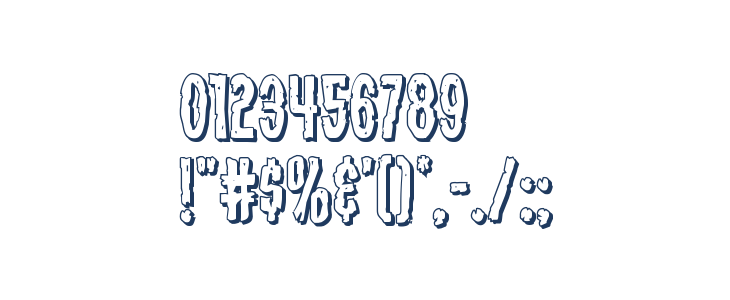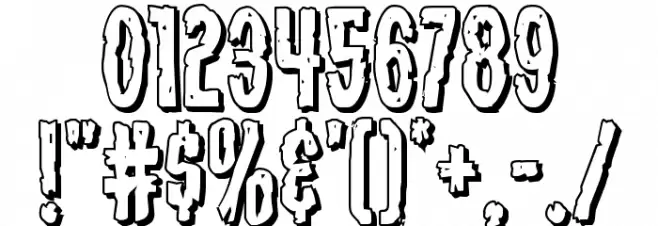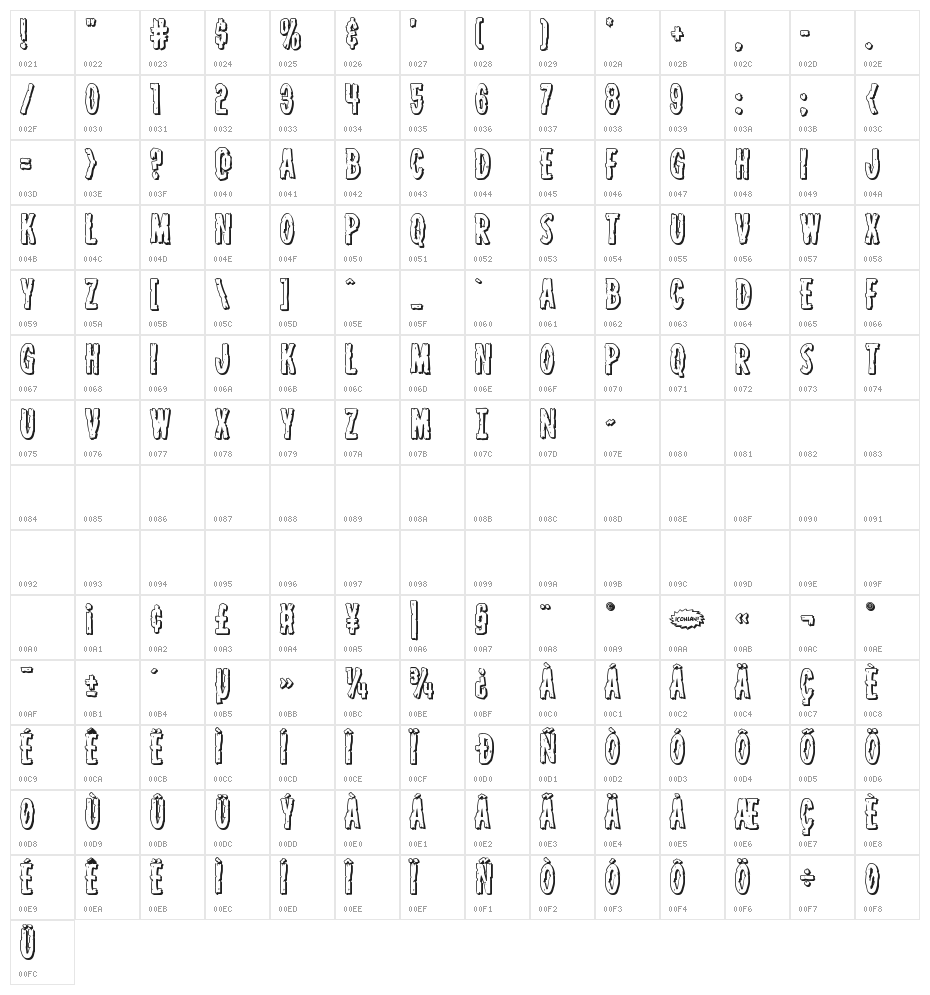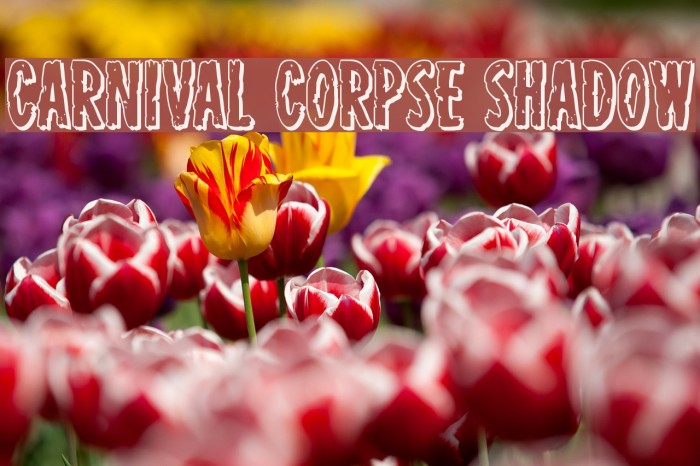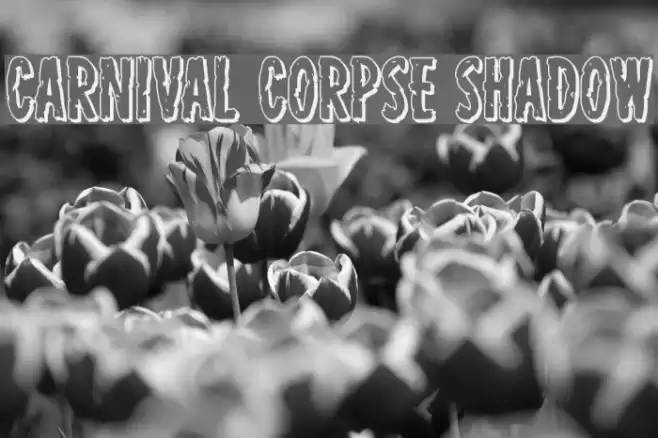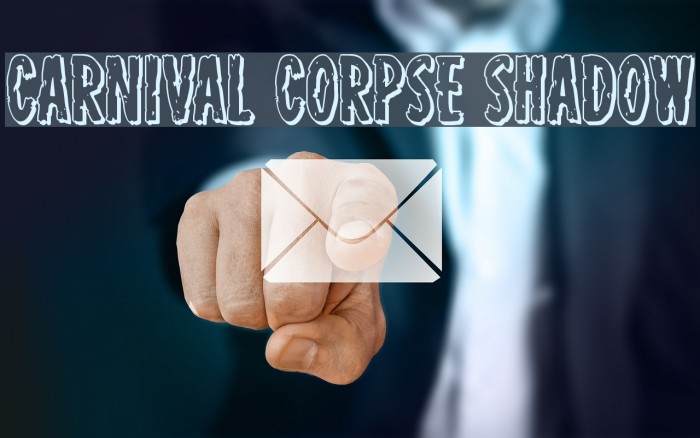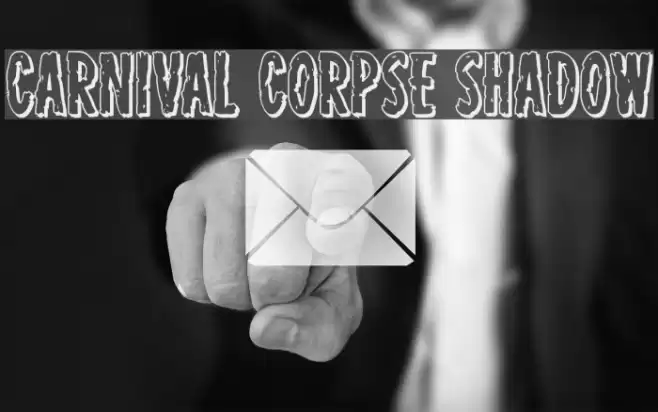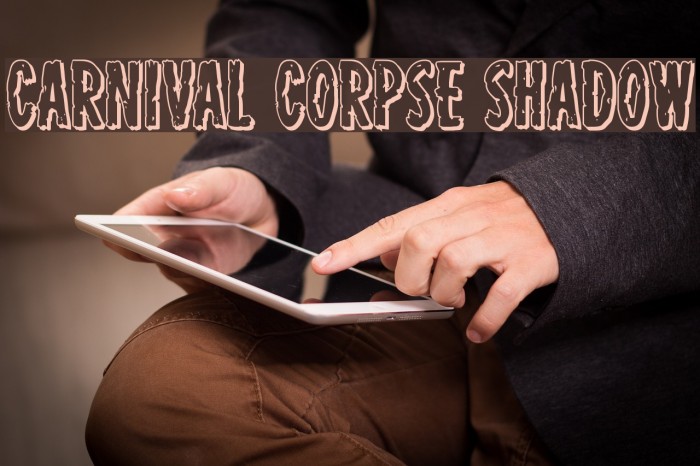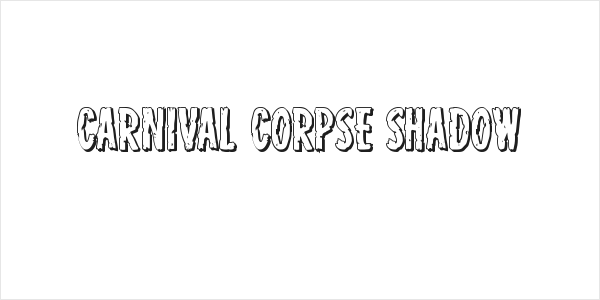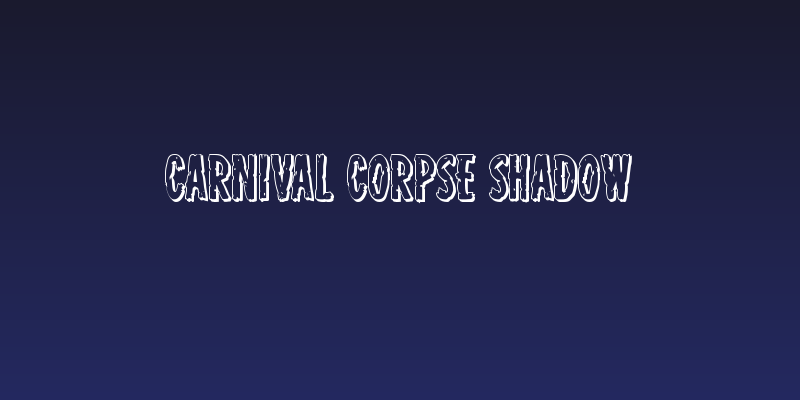
Carnival Corpse Shadow Font
Carnival Corpse Shadow Description
This font features a bold and dramatic style with a shadow effect that gives it a three-dimensional appearance. The characters have a distressed, rough texture, reminiscent of a horror or carnival theme. The uppercase and lowercase letters maintain a consistent height, while the numbers and special characters complement the overall design. The font's unique style makes it suitable for eye-catching designs, evoking a sense of mystery and intrigue.